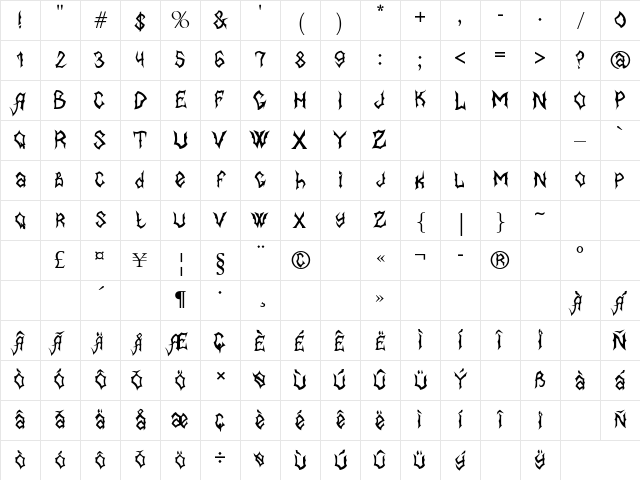
MB-BlackBook Type Regular
Designer: ModBlackmoon
Design Context for MB-BlackBook Type
MB-BlackBook Type is a composed and adaptable typeface that performs quietly and consistently across a wide range of design contexts.
Pro Tip: Use MB-BlackBook Type in both headline and body roles to test its range before committing to a single application.